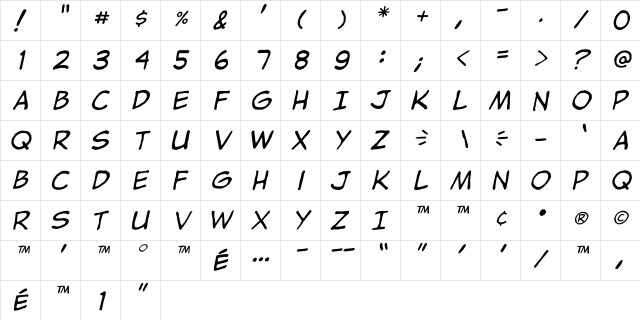
jibbajabba Italic
| Foundry | Jason Arthur |
| Designer | Jason L. Arthur |
Design Context for jibbajabba Typeface
jibbajabba is a composed and adaptable typeface that performs quietly and consistently across a wide range of design contexts. Its italic angle brings a sense of urgency and motion to the letterforms.
Pro Tip: Use jibbajabba for emphasis, pull quotes, and subheadings where its slanted energy can add rhythm to the layout.